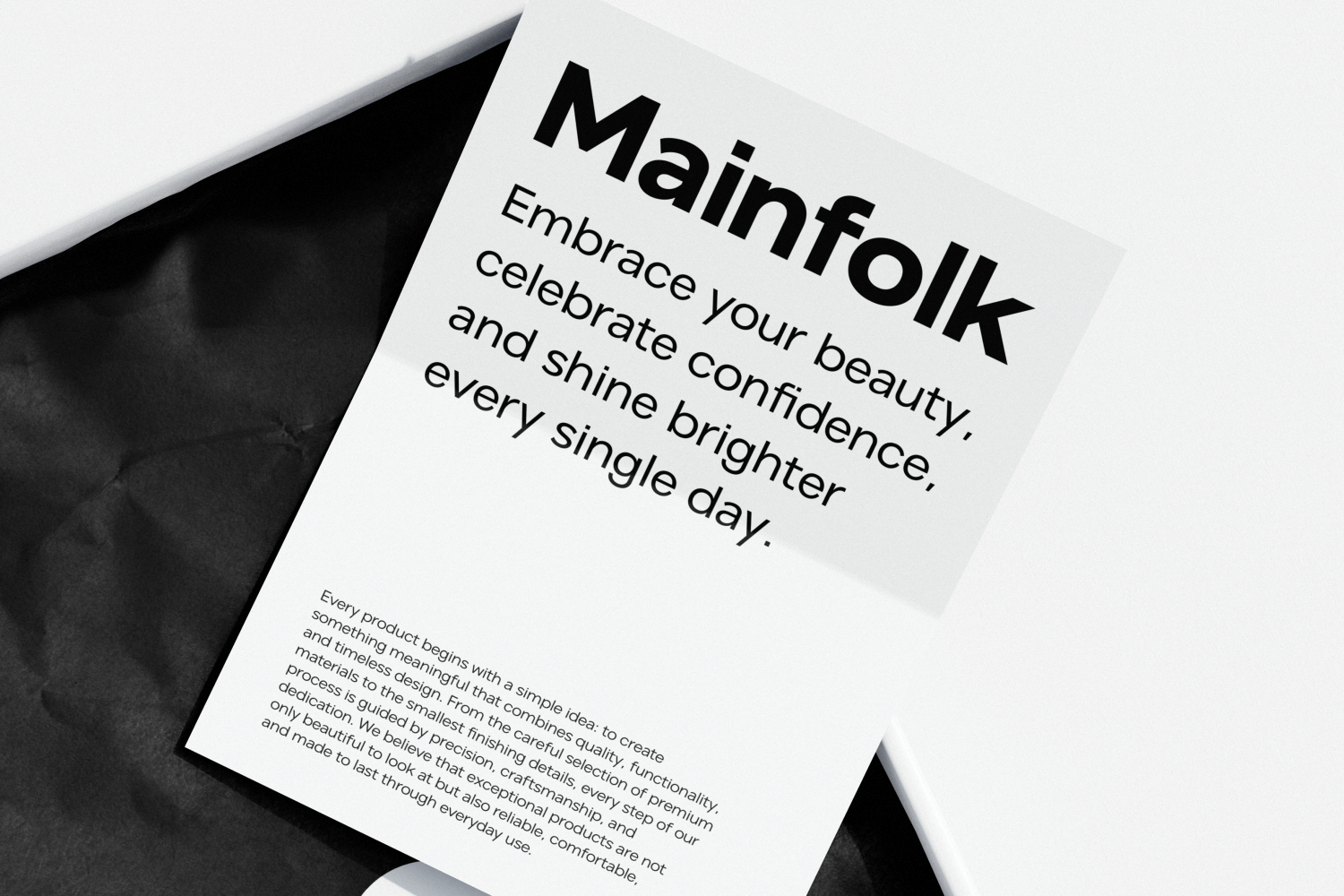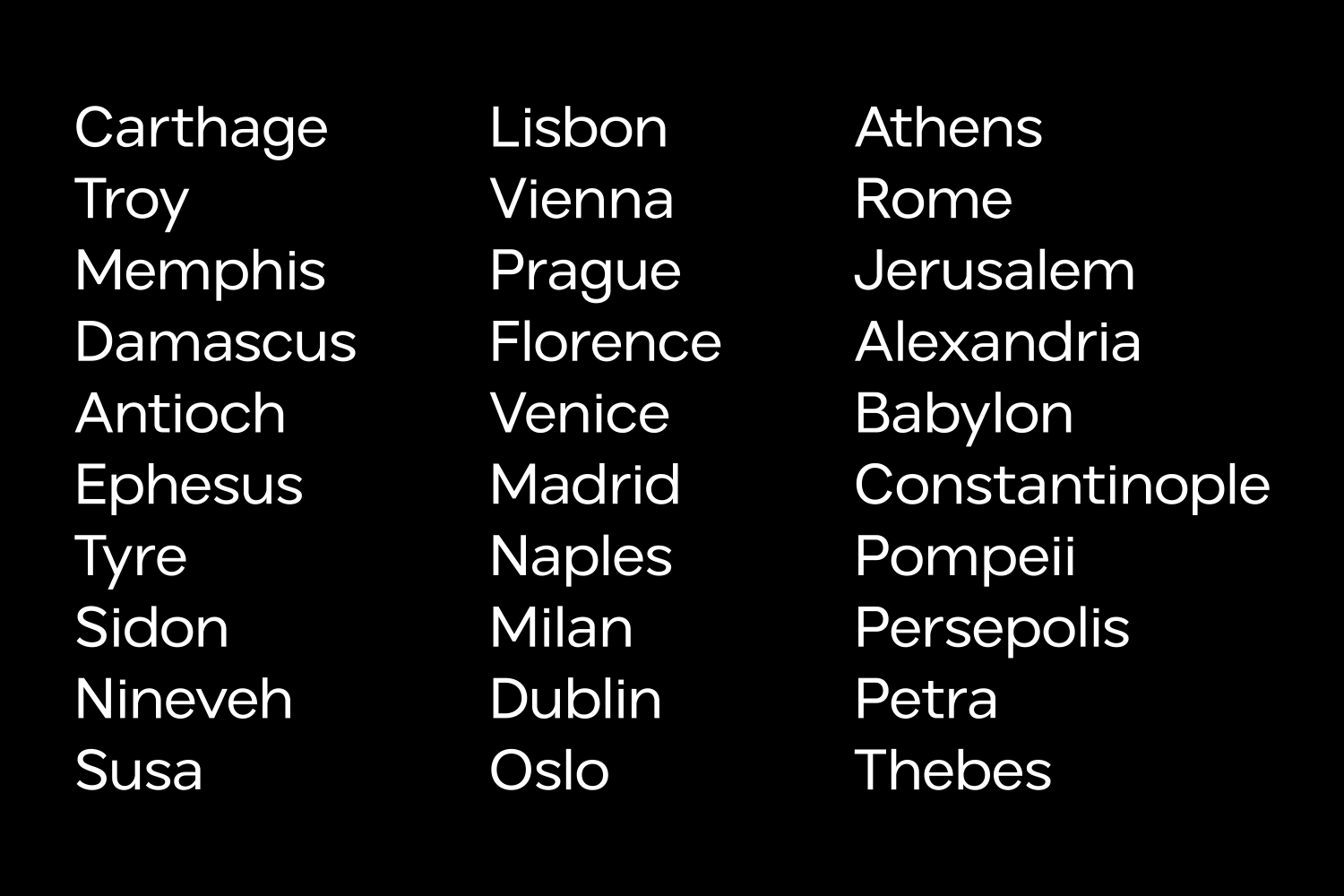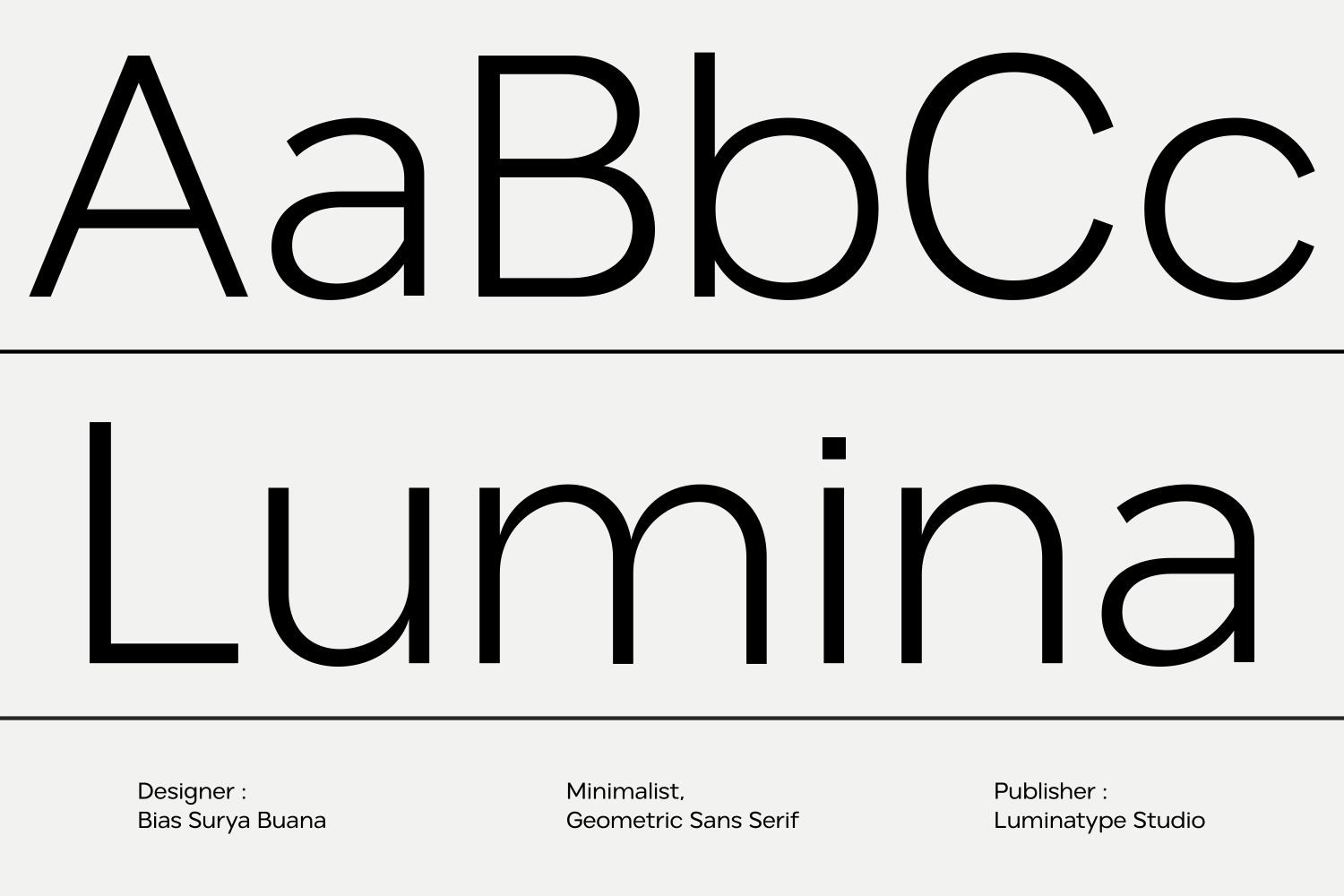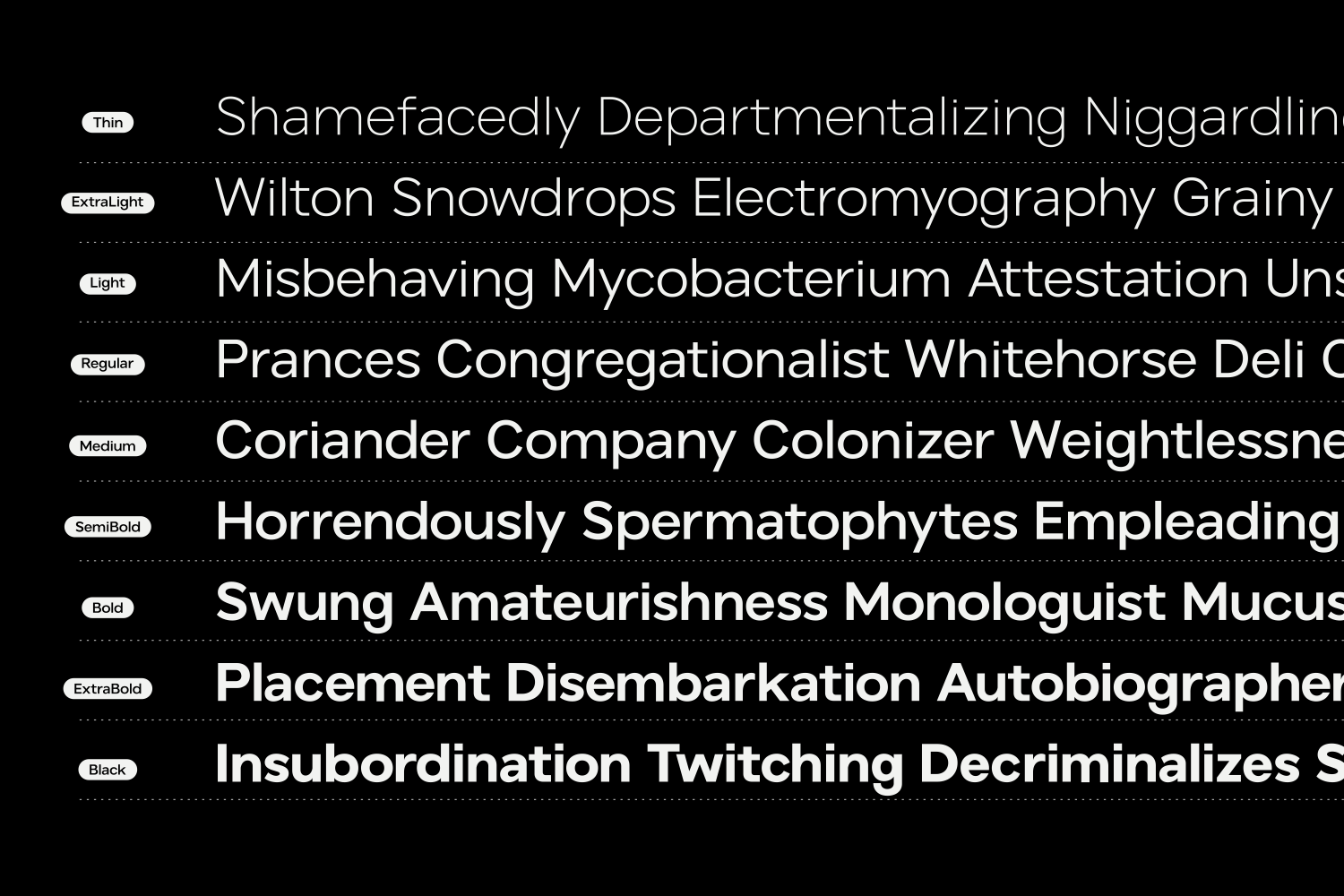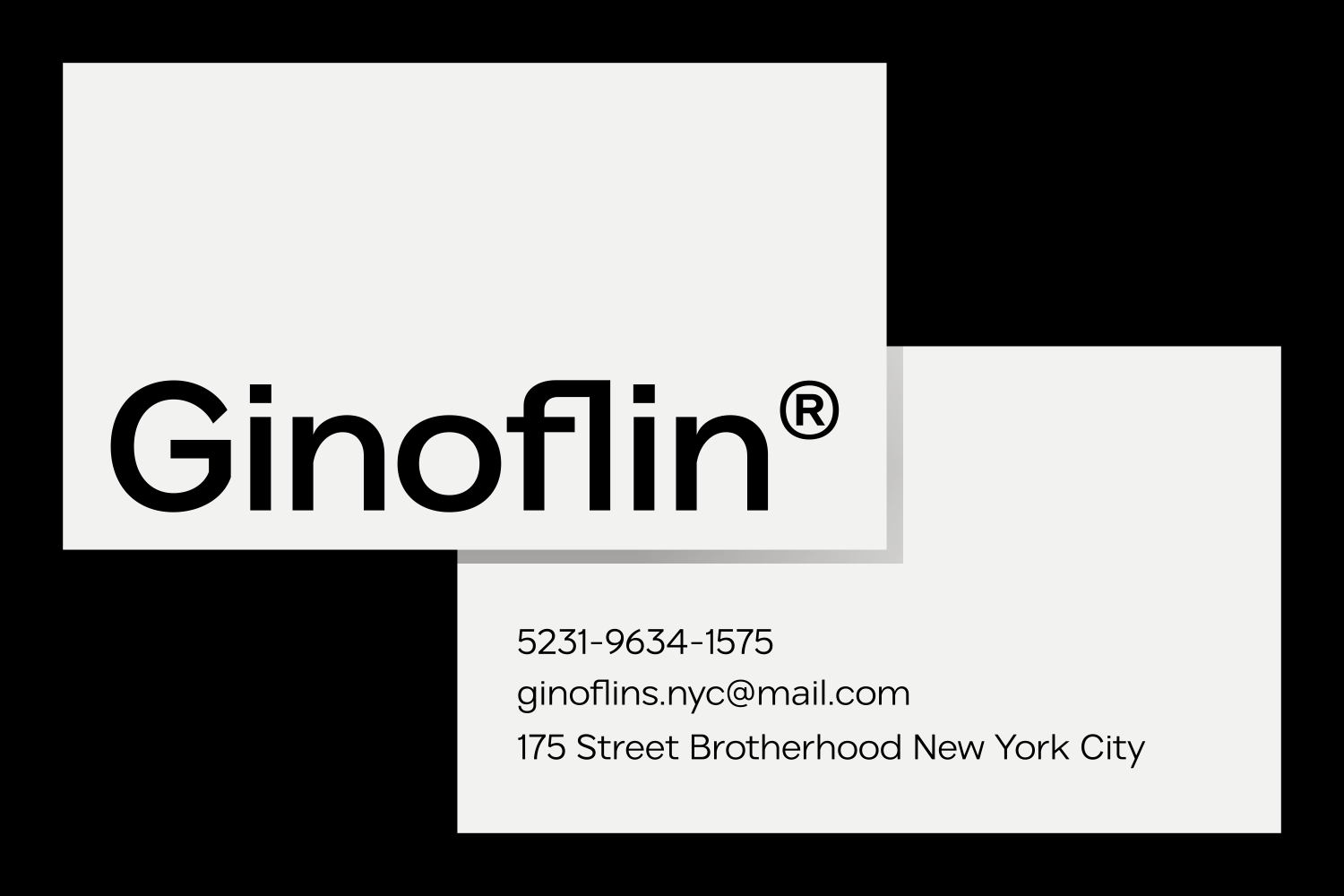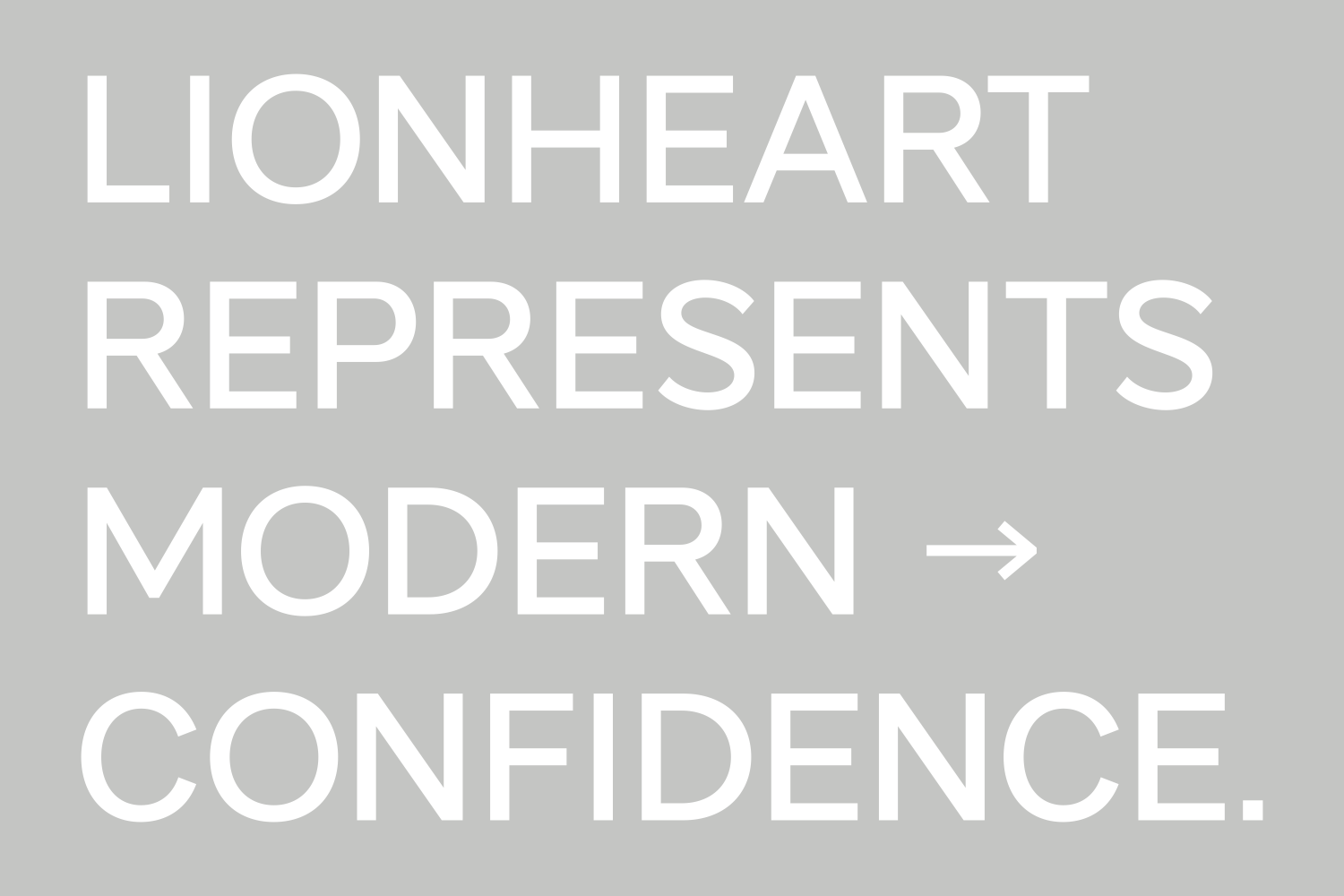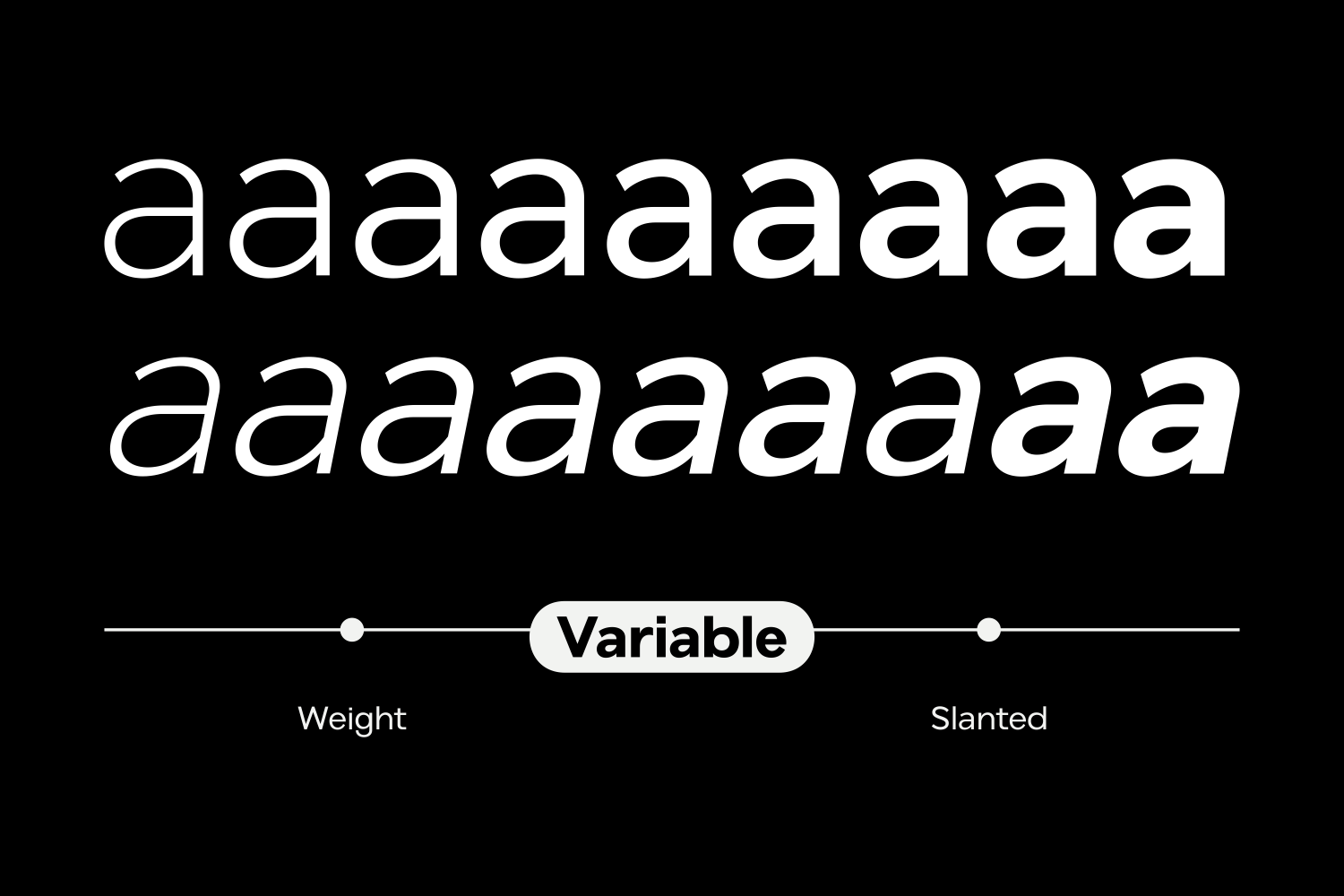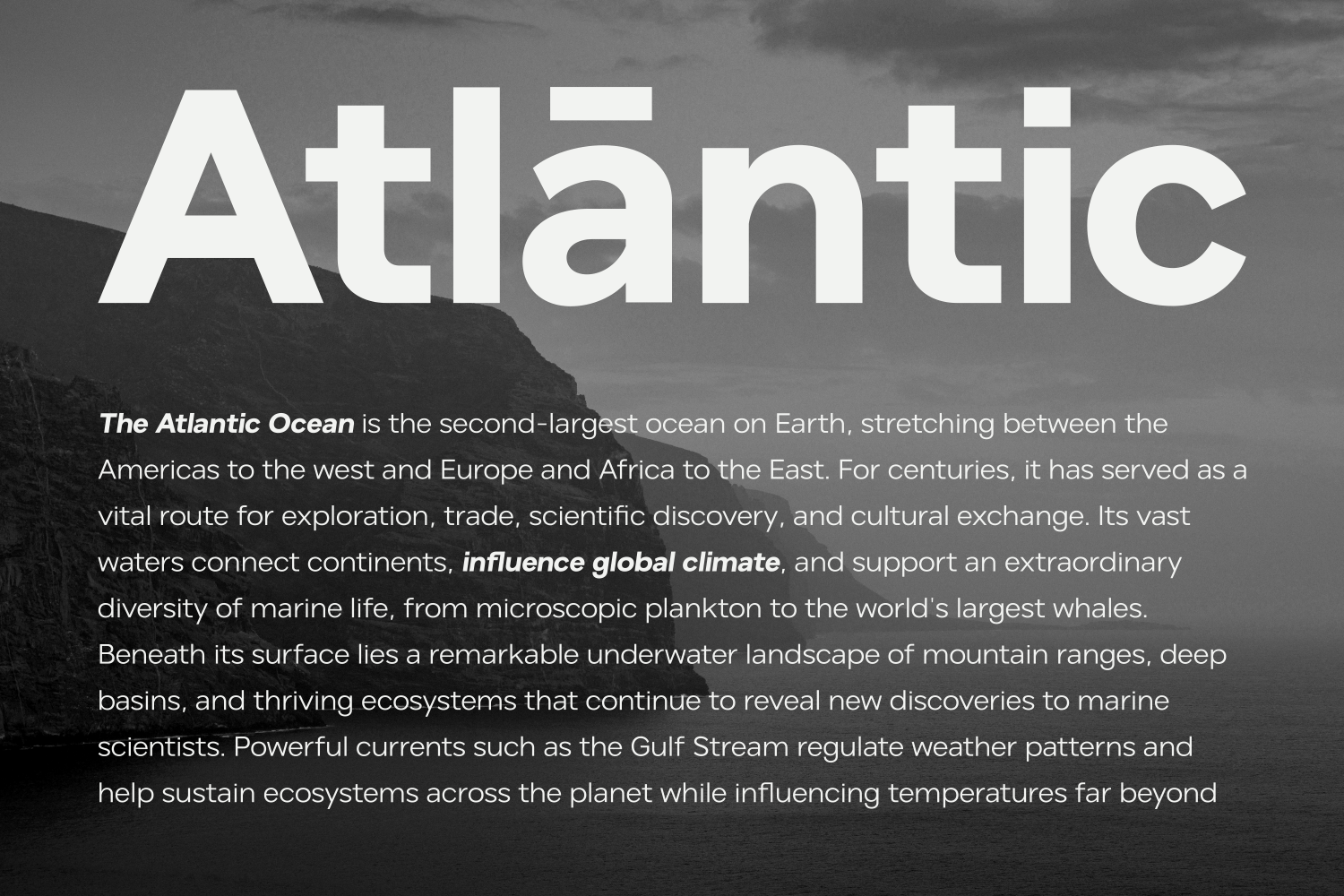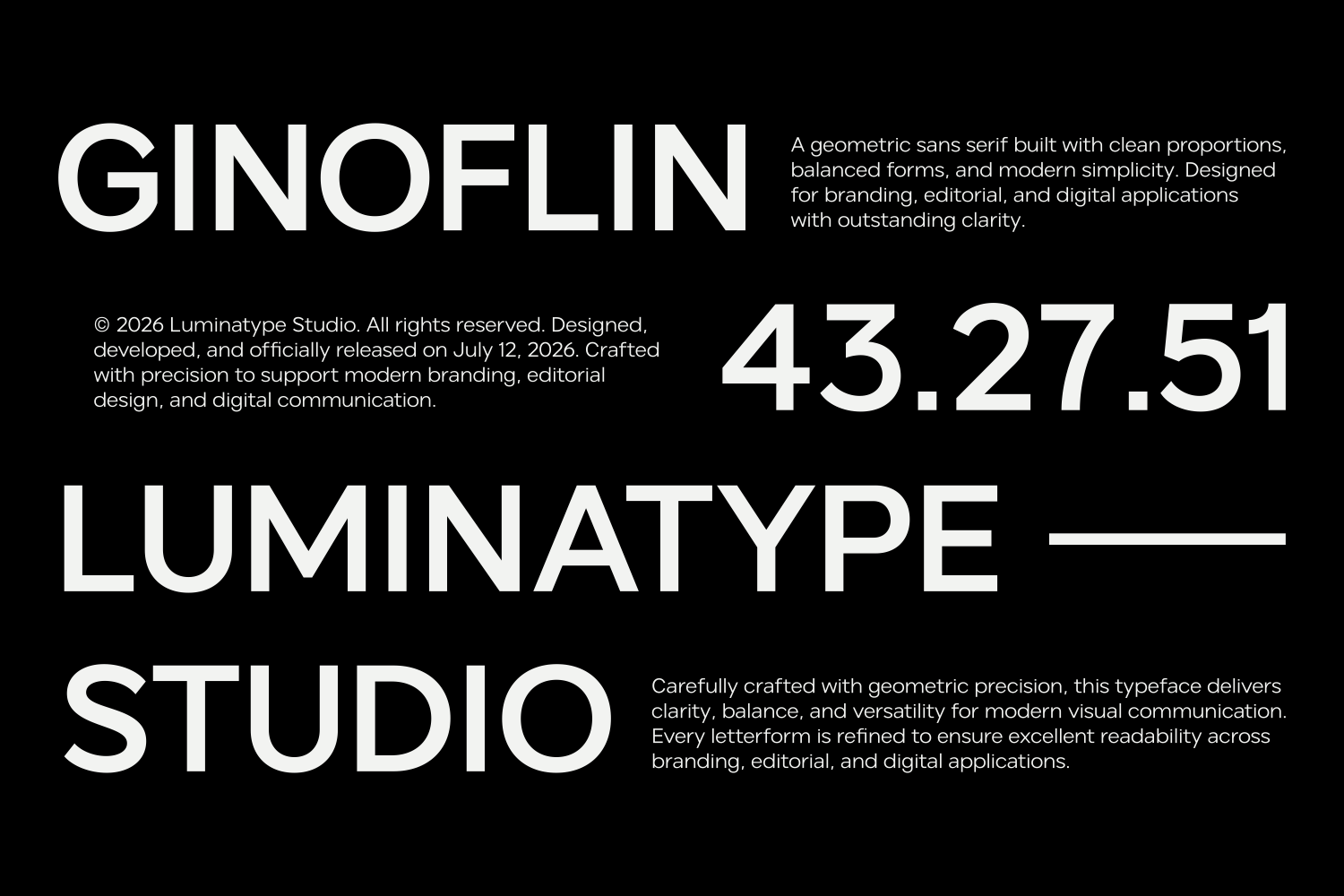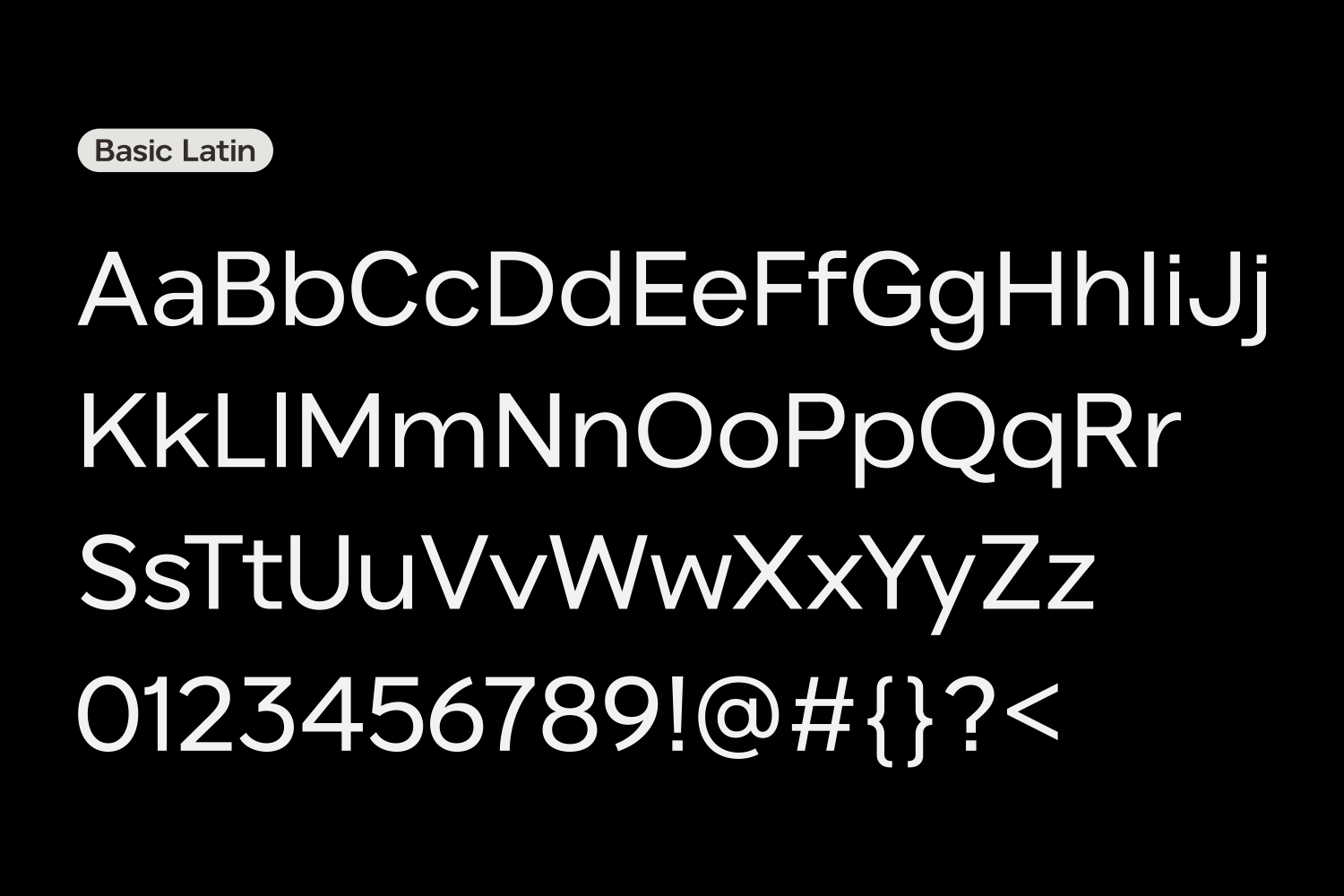
Aventina is a contemporary geometric sans serif developed by Luminatype Studio. Rooted in geometric construction and refined through optical correction, it balances precision with a natural reading rhythm. The family is designed to perform consistently across a wide range of applications, from visual identities and editorial systems to packaging, signage, and digital interfaces.
Rather than relying on strict geometry alone, Aventina incorporates subtle refinements that improve legibility and create a more approachable typographic texture. Balanced proportions, carefully considered spacing, and consistent stroke relationships give the typeface a confident yet understated presence.
Designed for designers who value clarity and versatility, Aventina offers a reliable foundation for contemporary communication. Whether used in expressive headlines or extended text, it delivers a timeless voice that remains functional, distinctive, and enduring across both print and screen